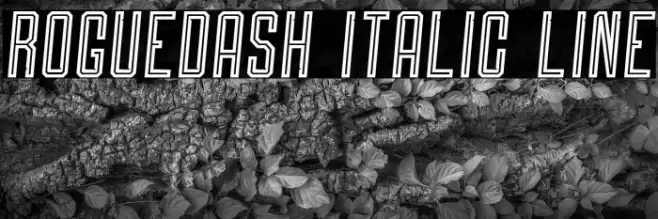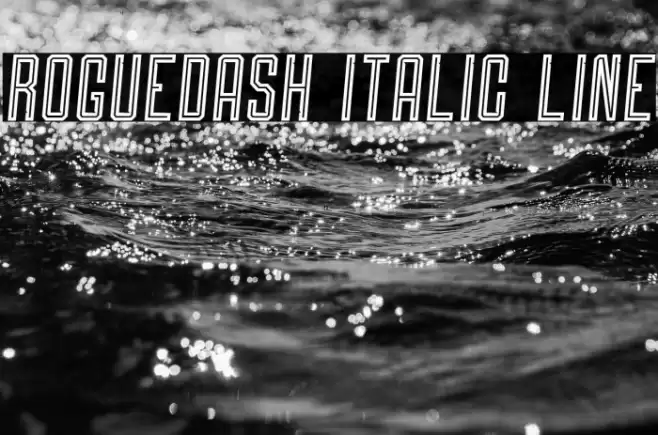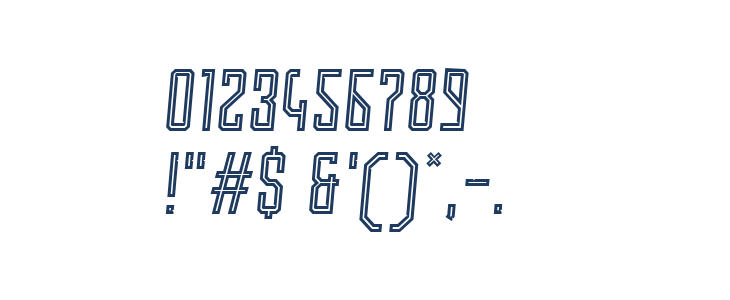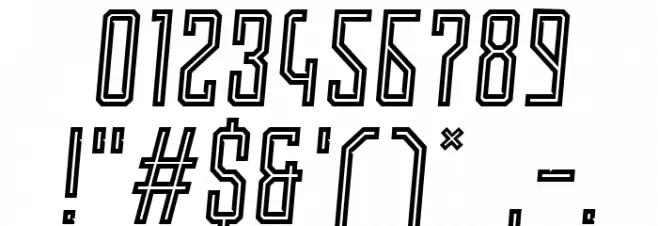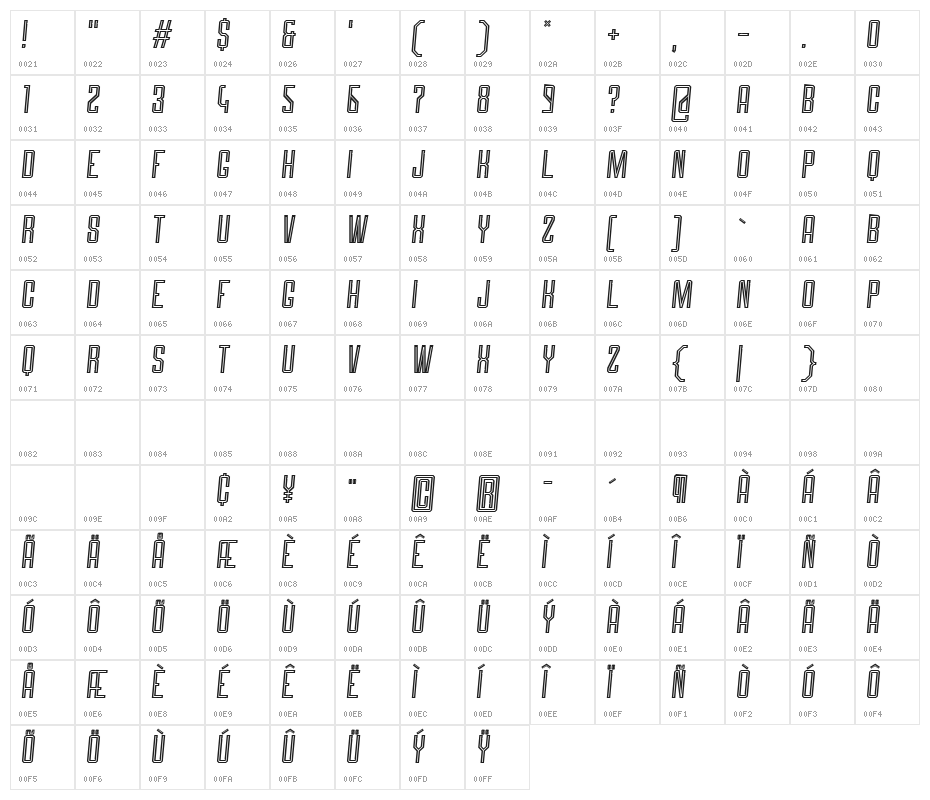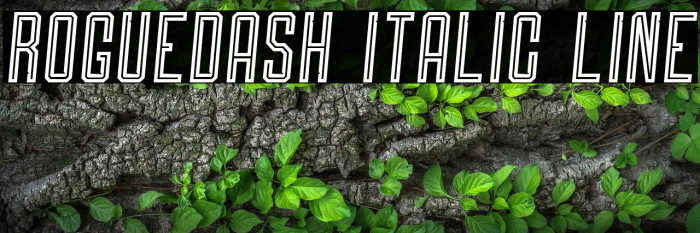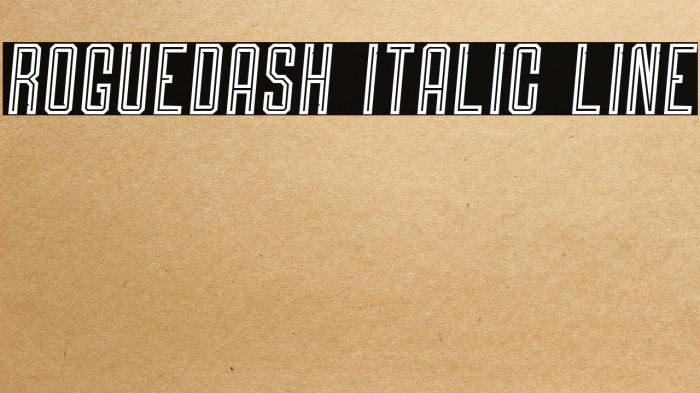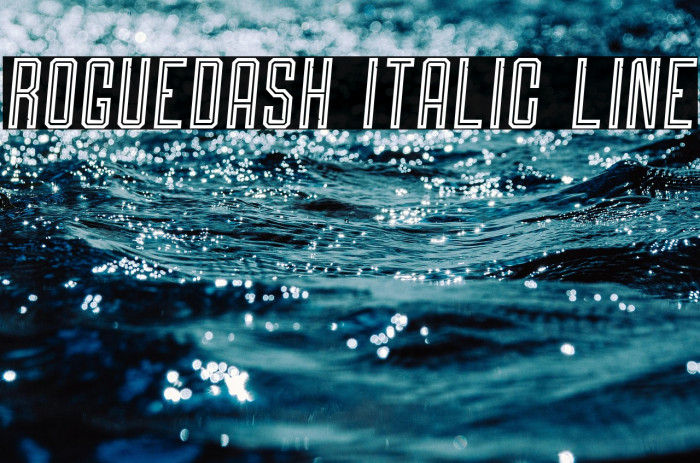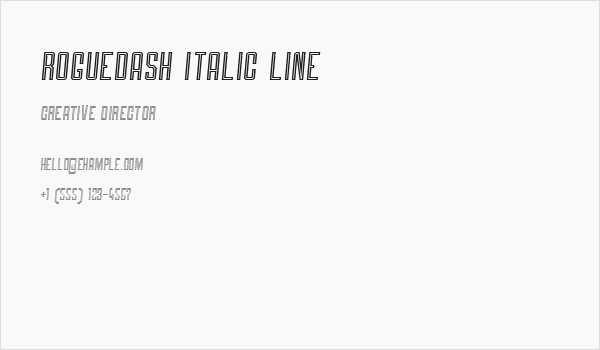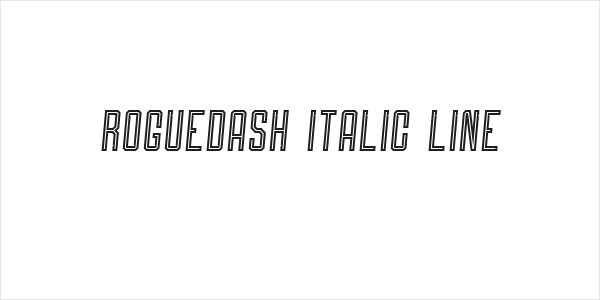
Roguedash Italic Line Font
Roguedash Italic Line Description
This font features a modern, geometric design with a distinct italic slant. The characters are outlined, creating a hollow effect that adds depth and dimension. The uppercase and lowercase letters maintain a consistent style, with sharp angles and clean lines. Numbers and special characters follow the same design principles, ensuring uniformity across all glyphs. The font's structure is bold and eye-catching, making it suitable for impactful visual statements. Its unique style is both futuristic and stylish, appealing to contemporary design aesthetics.
A modern, italic, outlined font with geometric shapes and a bold, futuristic style from Uncategorized fonts.
- Proposed Projects: Ideal for branding, posters, headlines, and any project requiring a modern, eye-catching typeface.